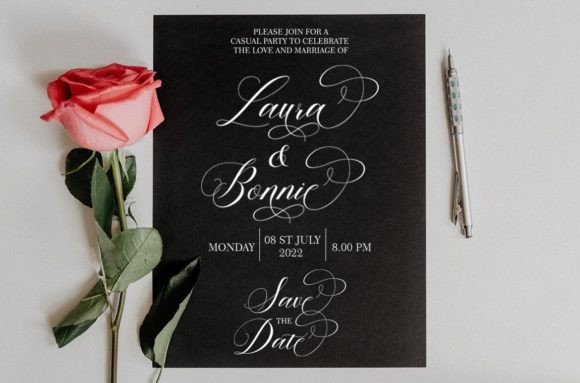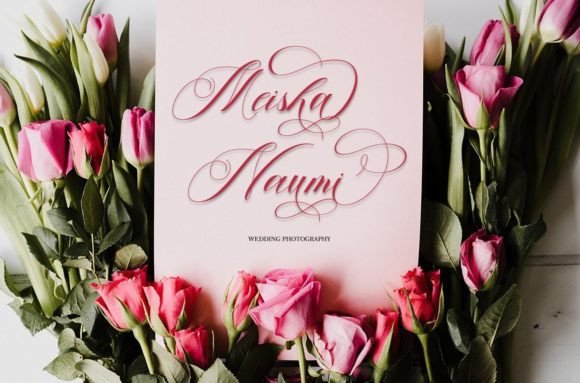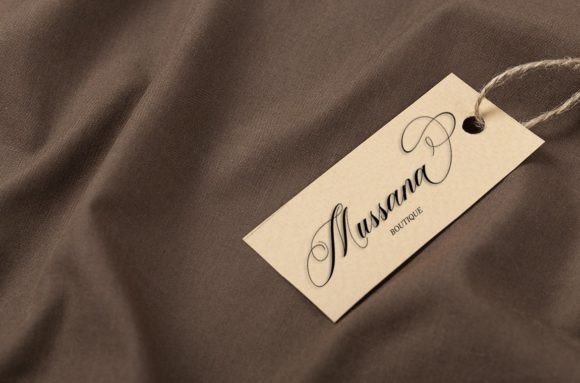
About Respect Font
“Respect” is indeed a dazzling script font that showcases exquisite craftsmanship and intricate detailing. This font stands out as a remarkable addition to your font library, regardless of the topic or project. Its elegant design has the power to elevate any creation, adding a touch of sophistication and style.
One of the notable features of “Respect” is its PUA (Private Use Area) encoding, allowing easy access to all its glyphs and swashes. This feature enhances the font’s versatility, enabling you to customize your designs effortlessly. Whether you’re working on branding, advertising, invitations, social media posts, or any other creative project, “Respect” provides a wide array of options to enhance your typography.
The carefully crafted letterforms and intricate details of this font make it a perfect choice for various applications. Its flowing curves and artistic elements lend a sense of grace and elegance to any text. Whether you’re designing wedding invitations, elegant logos, eye-catching advertisements, or captivating product packaging, “Respect” adds a touch of glamour that captures attention.
Moreover, the font’s versatility extends to digital media, making it ideal for social media graphics, website headers, and digital presentations. The availability of diverse glyphs and swashes ensures that your text can be tailored to match your creative vision precisely. With “Respect,” you have the freedom to experiment with different styles, creating visually stunning designs that leave a lasting impression.
In summary, “Respect” is more than just a font; it’s a design tool that empowers you to create visually striking and impactful projects. Its meticulous craftsmanship, coupled with the convenience of PUA encoding, makes it a valuable asset for designers, marketers, and anyone seeking to enhance their creative endeavors. Embrace the beauty and versatility of “Respect” to transform your designs into masterpieces that command attention and respect from viewers.